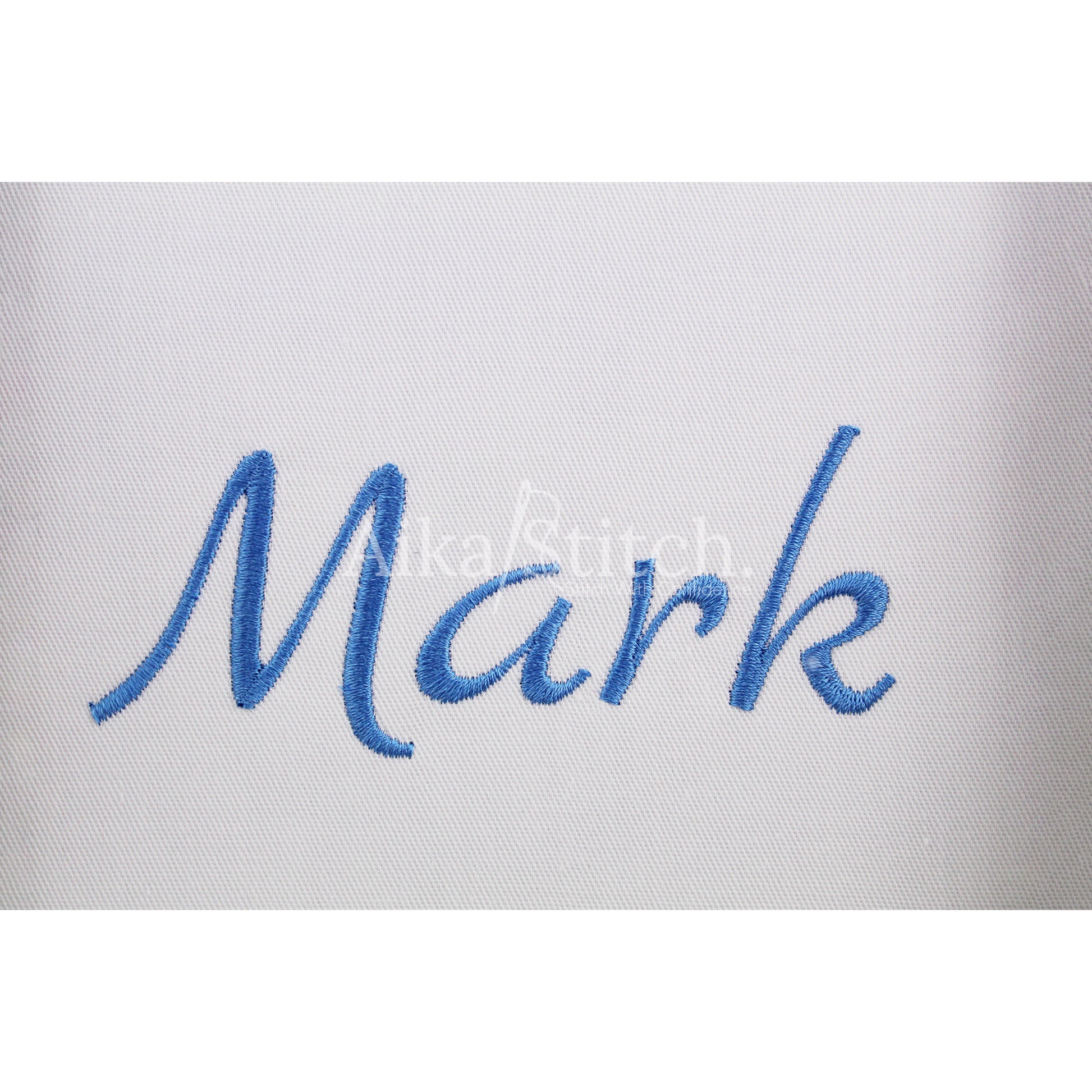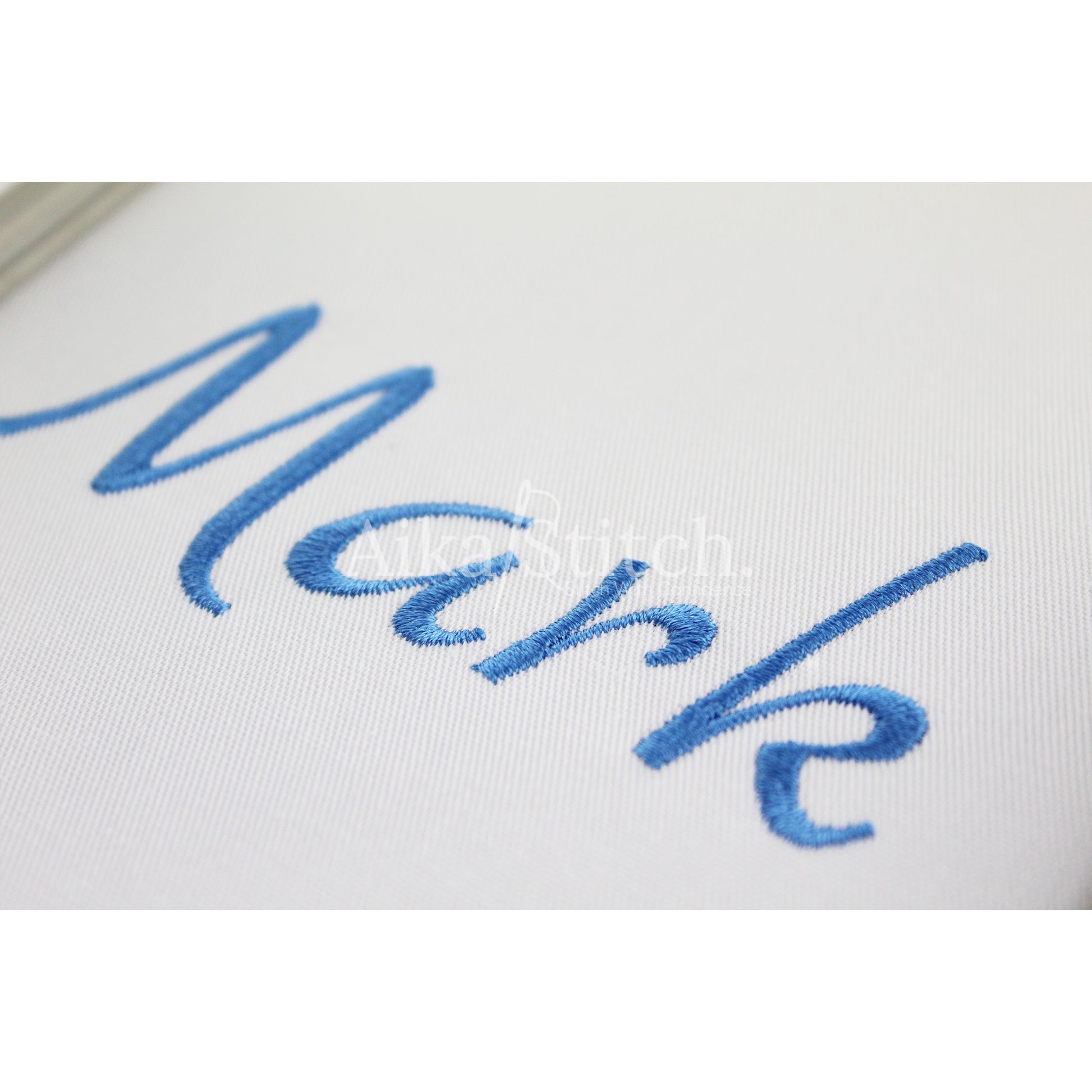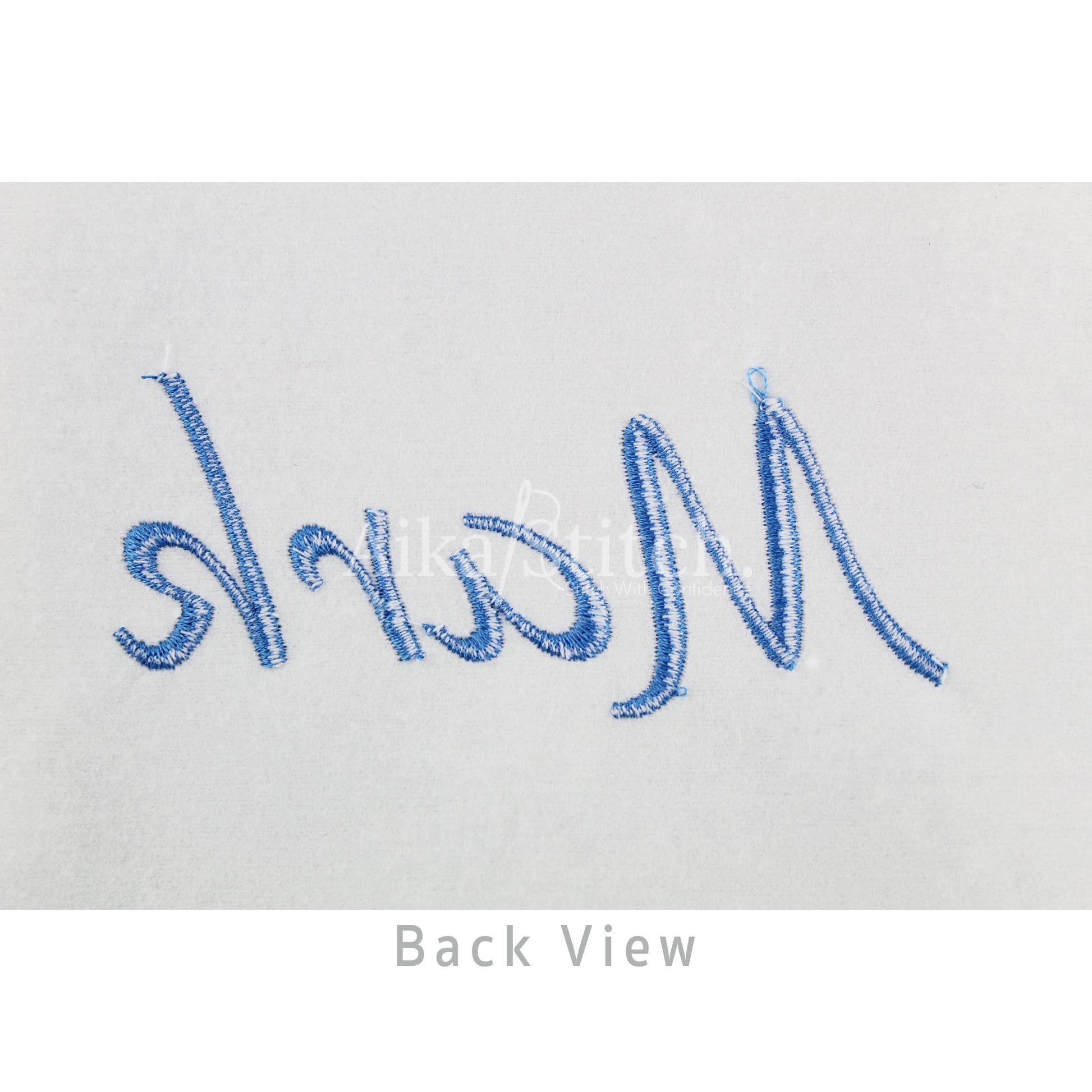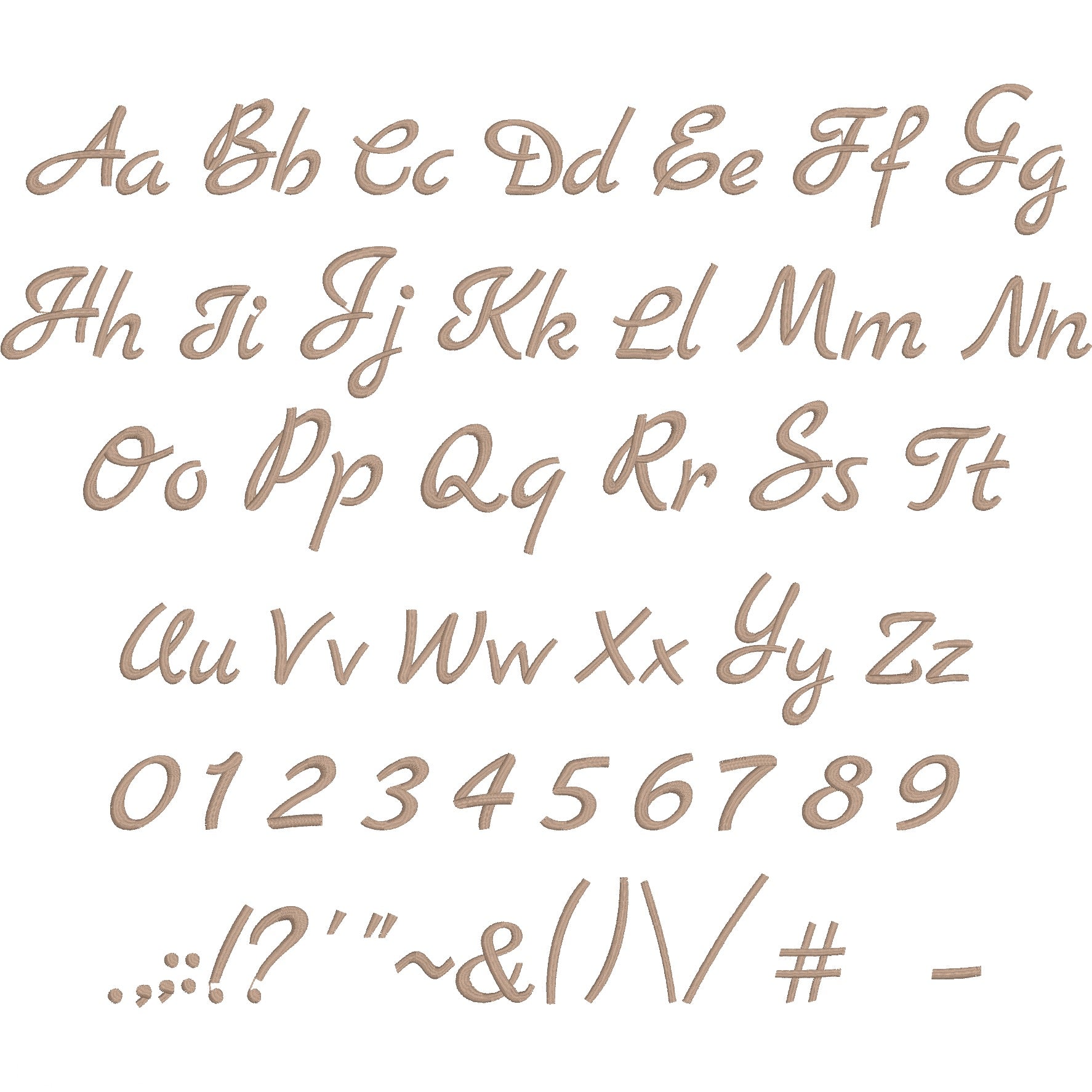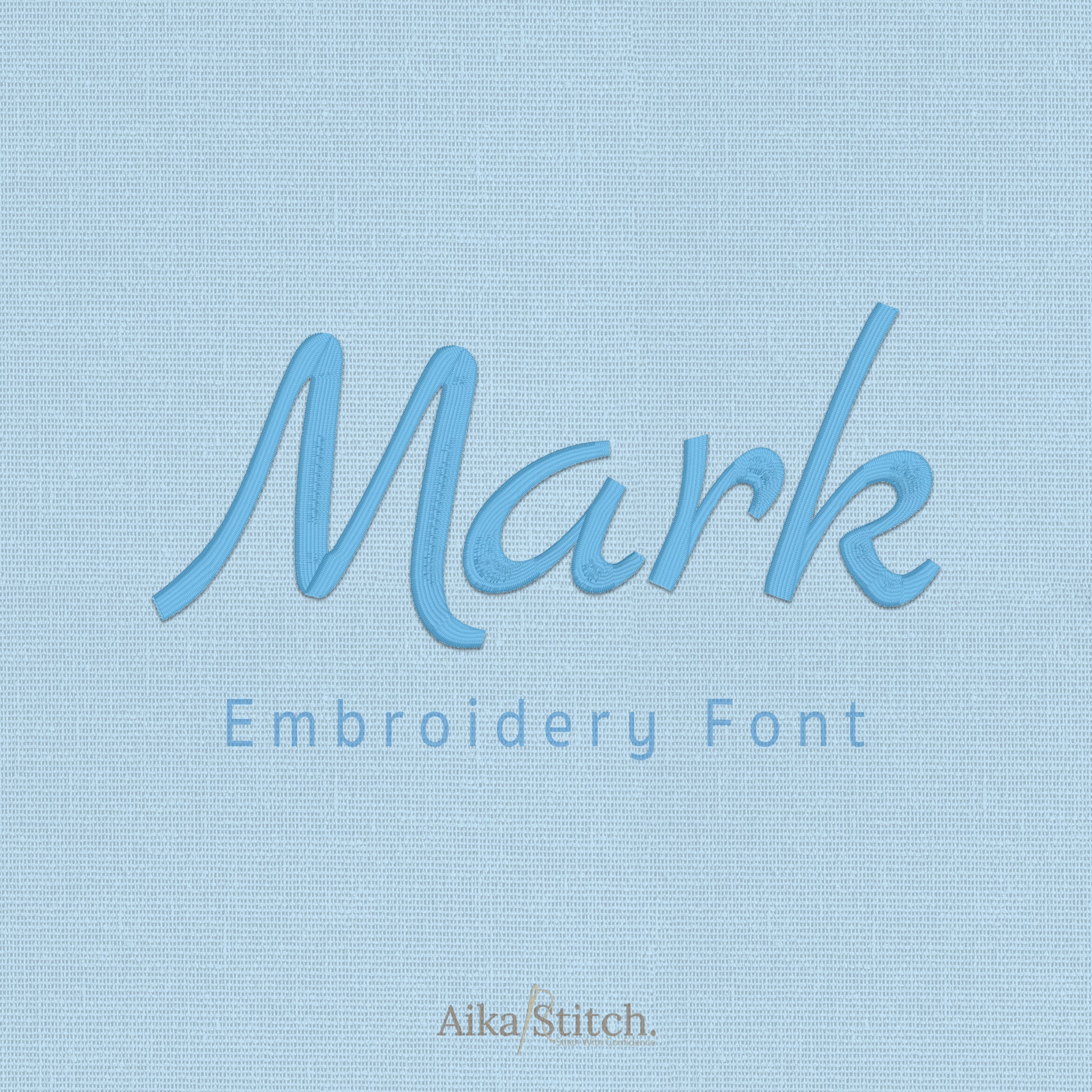
Mark Script Handwritten Embroidery Font | Native BX Included
• Manually Digitized by AikaStitch.
Mark is a Script Handwritten machine embroidery font featuring beautiful satin stitch lettering. Perfect for shirts, towels, hats, baby gifts, monograms, and small business embroidery projects.
• A–Z Uppercase Letters
• a–z Lowercase Letters
• 0–9 Numbers
• Punctuation & Special Characters
• Satin Stitch